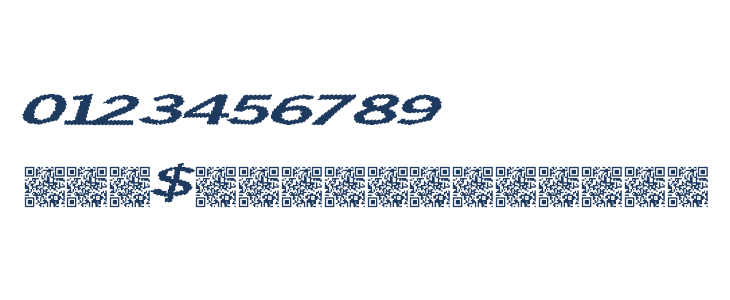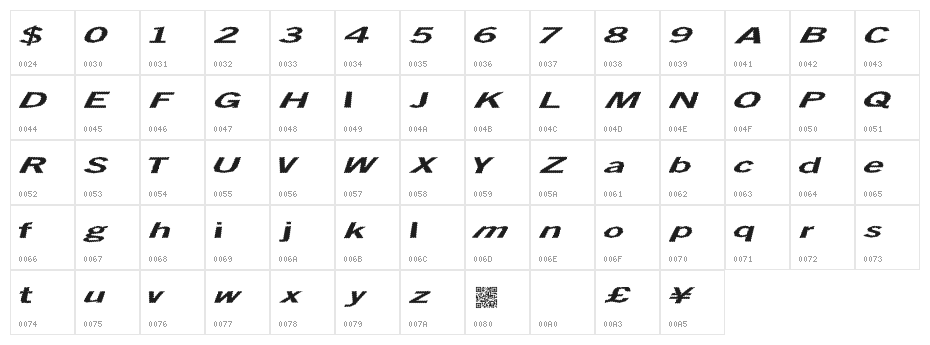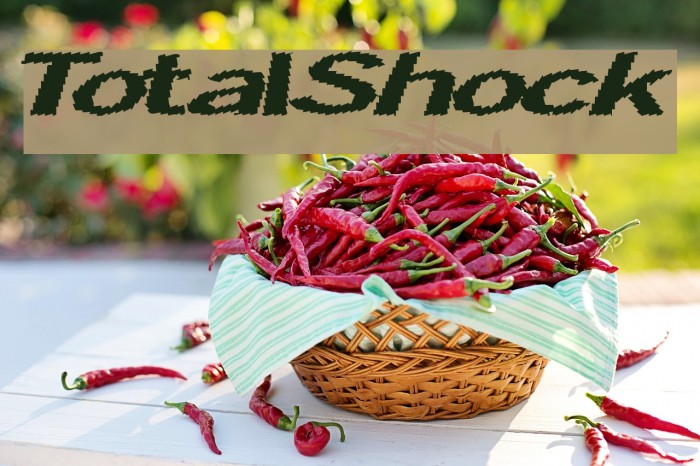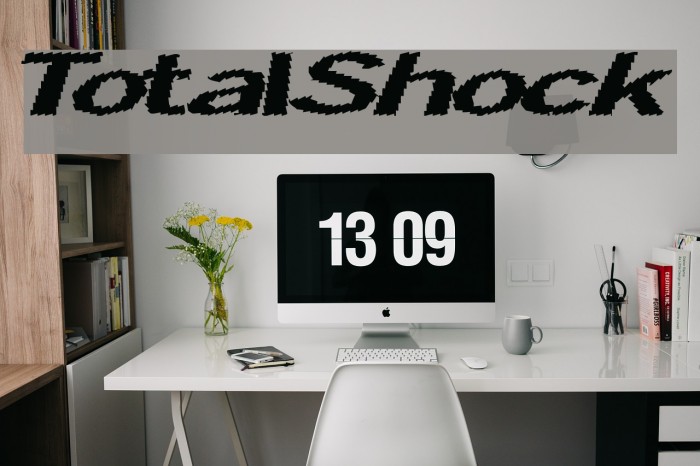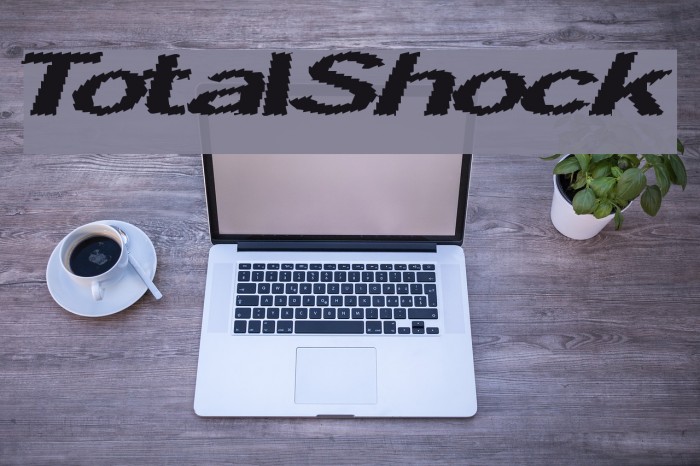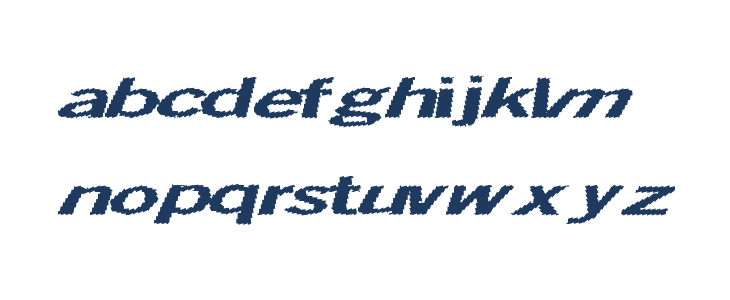
TotalShock Font
TotalShock Description
This font features a bold, italicized style with a dynamic and energetic appearance. The characters are slanted, giving a sense of motion and speed. The strokes are thick and consistent, with a slightly jagged texture that adds a unique, edgy feel. The uppercase and lowercase letters maintain a uniform width, while the numerals and special characters follow the same stylistic approach. The overall design is modern and eye-catching, making it suitable for projects that require a strong visual impact.